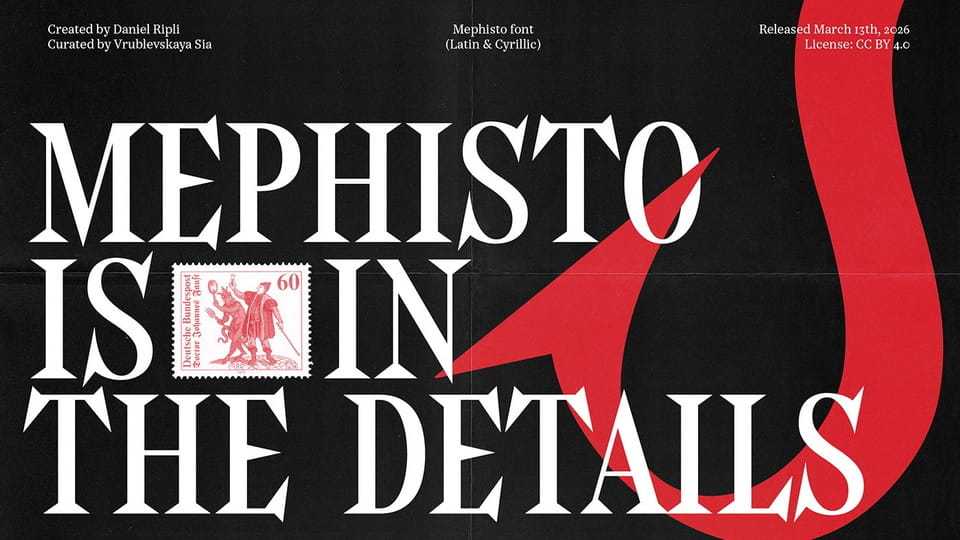
Download Mephisto font, a display serif typeface with a sly, ironic personality, named after Goethe’s iconic antagonist — the devilish trickster Mephistopheles.